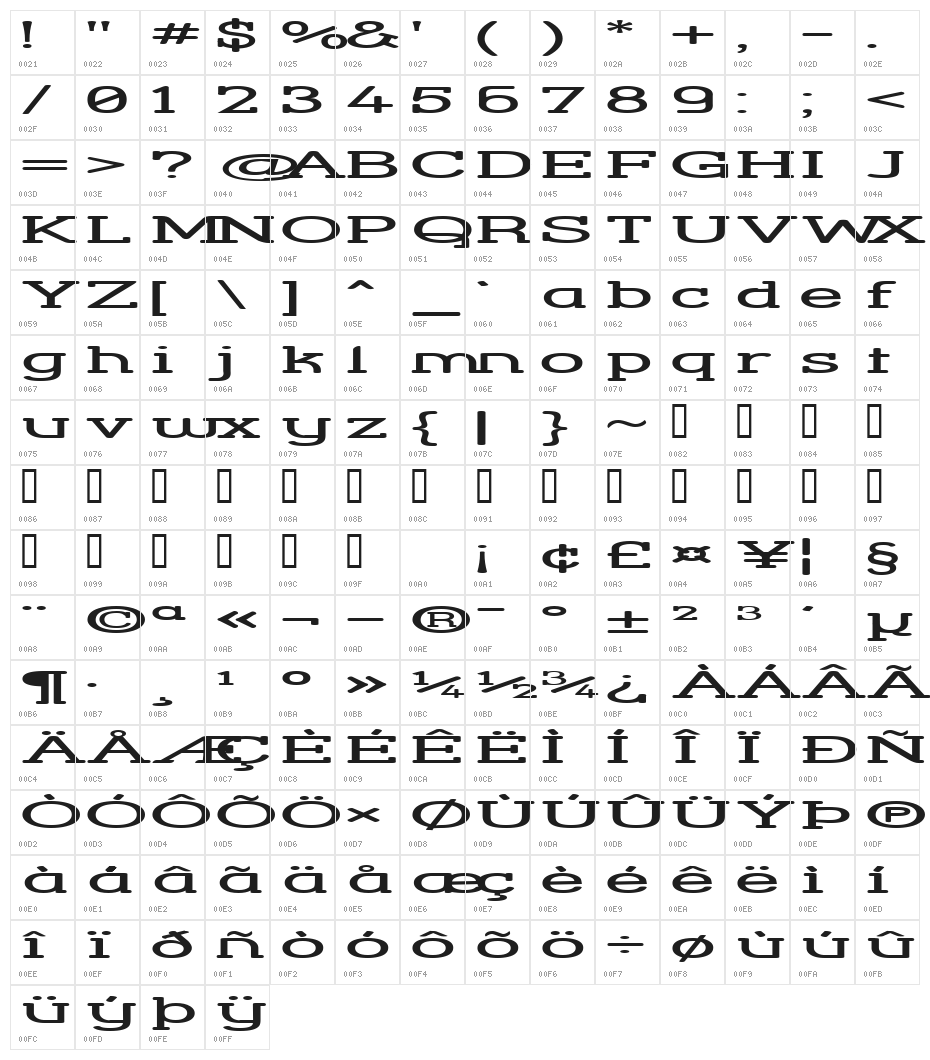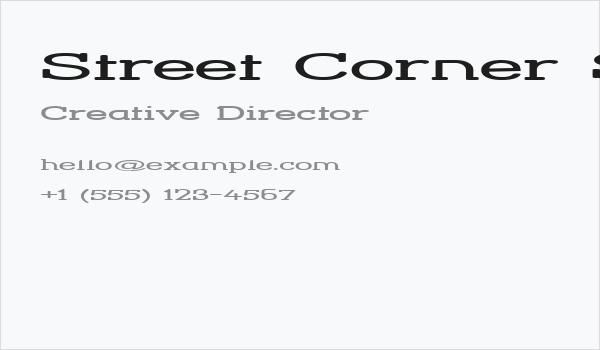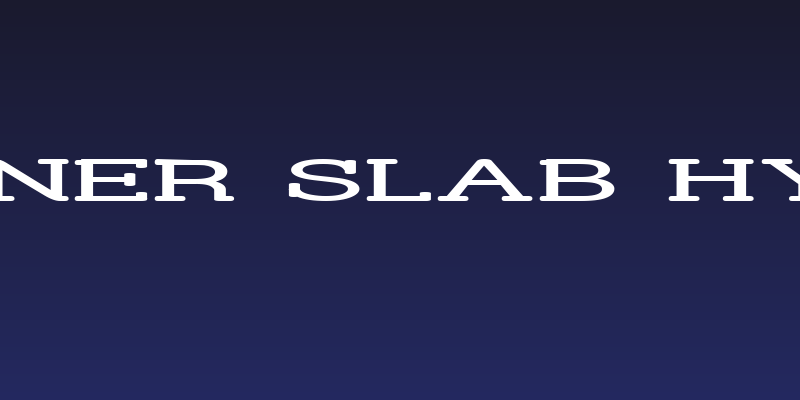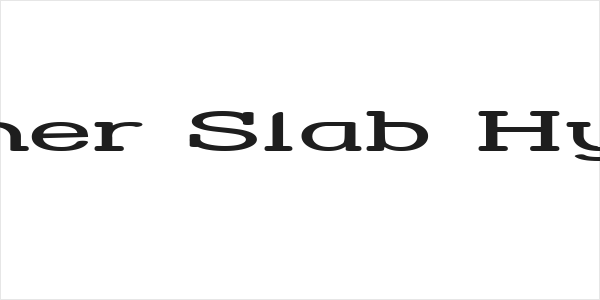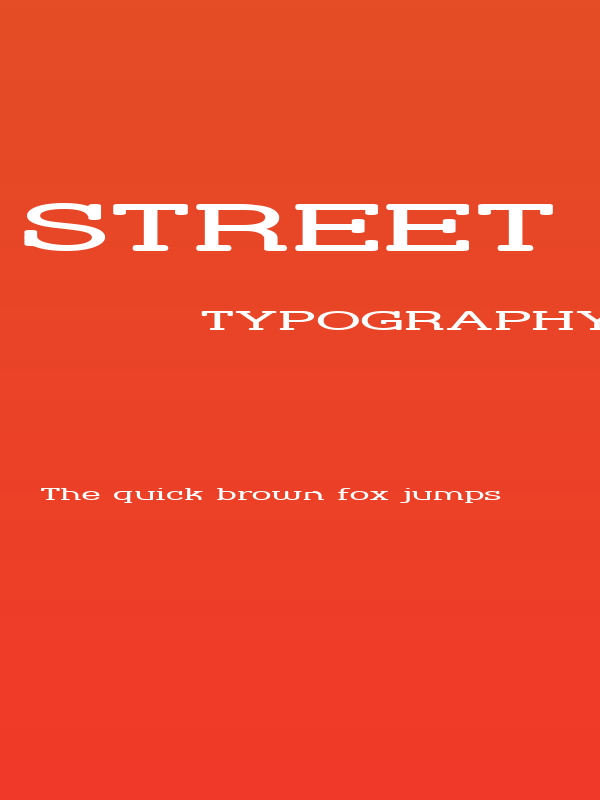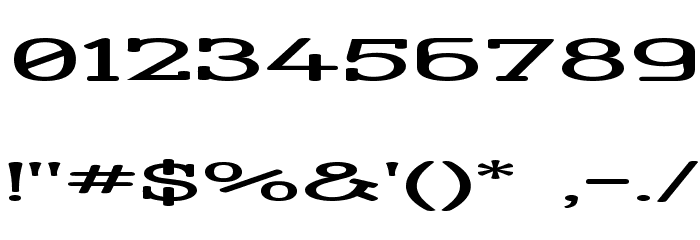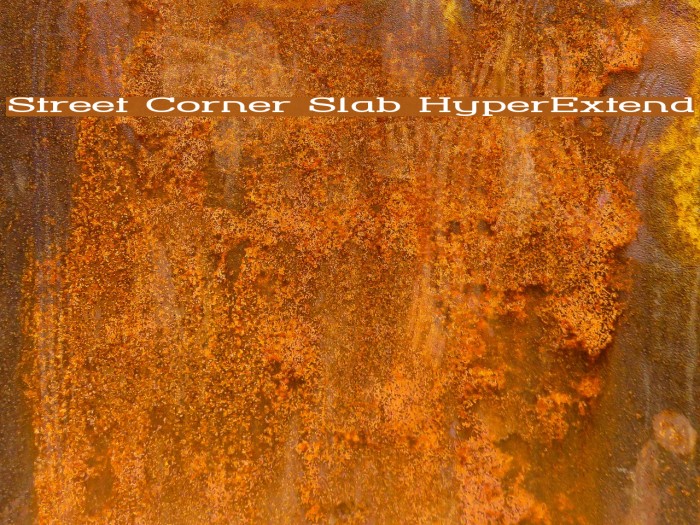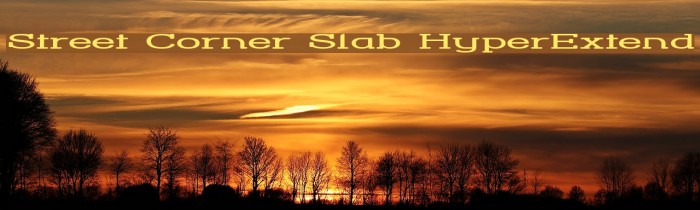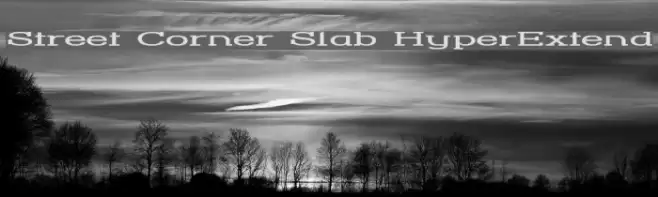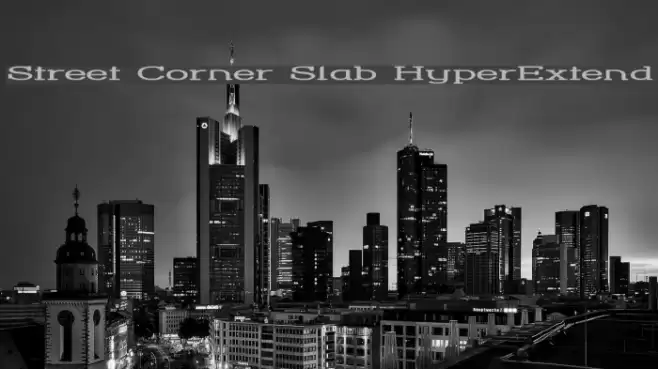
Street Corner Slab HyperExtend Font
Street Corner Slab HyperExtend Description
This font features a robust and bold slab serif style, characterized by thick, block-like serifs that give it a strong and authoritative presence. The uppercase letters are uniform and structured, while the lowercase letters maintain a consistent weight, ensuring readability. The numerals are clear and distinct, with a geometric influence that complements the overall design. Special characters are well-integrated, maintaining the font's cohesive appearance. The font's design is both modern and classic, making it versatile for various applications.
| Overall Style | Modern, Classic |
| Proposed Projects | Ideal for branding, headlines, posters, and signage where a strong, authoritative presence is desired. |